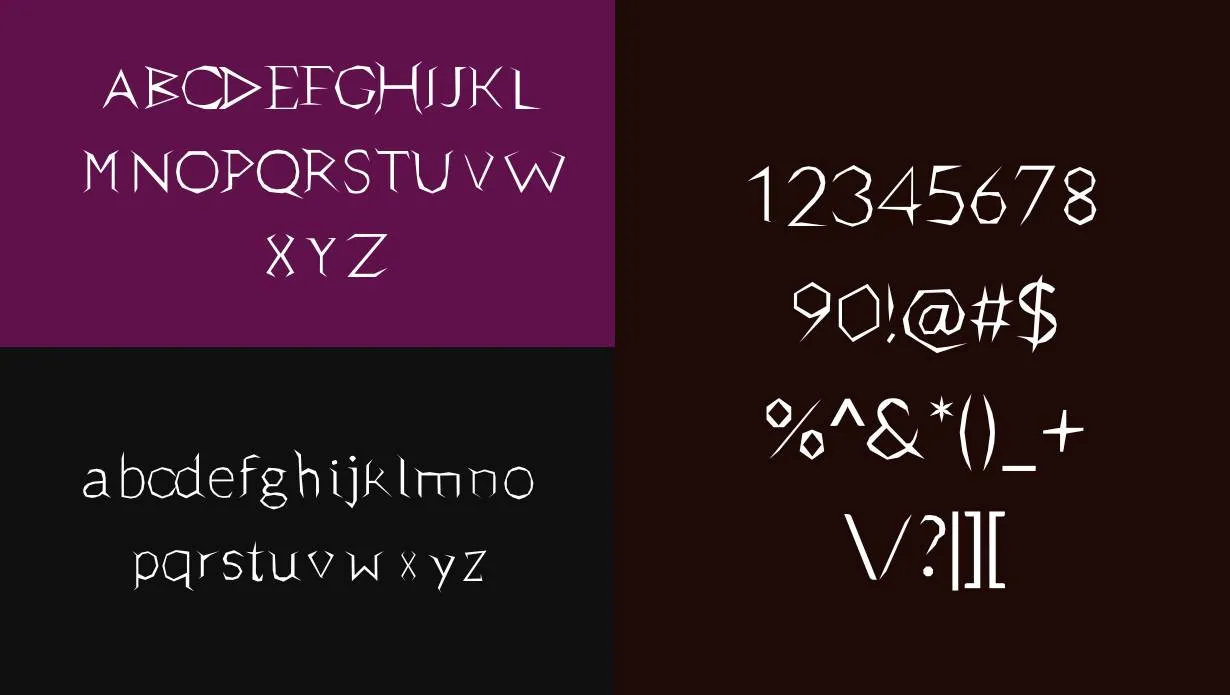
Scary Roots Font has a spooky and eerie design, making it ideal for projects related to horror, Halloween, and the supernatural.
Scary Roots Font Family
Its unconventional and unsettling letterforms are perfect for creating a sense of fear and mystery in your designs, often seen in horror movie posters and haunted house promotions.